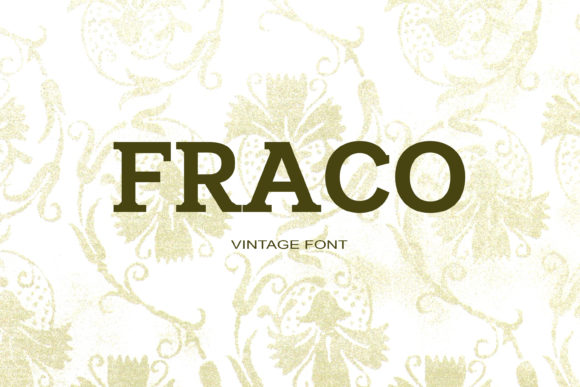
Introducing Fraco, a captivating serif font that radiates warmth and sophistication. Created by the ingenious minds of DmDesignsStoreArt, this breathtaking font evokes a sense of timeless elegance with its alluring curves and open counters.
Immerse yourself in the world of typography as Fraco's graceful lines dance across your screen. Its delicate serifs add a touch of whimsy, while the open counters ensure effortless readability. Let the harmonious rhythm of Fraco's letterforms captivate your audience, leaving a lasting impression that transcends the ordinary.
Embrace Fraco's versatility as it effortlessly adapts to an array of design projects. From captivating headlines that demand attention to elegant body text that invites immersion, Fraco effortlessly elevates your creative vision. Its timeless charm seamlessly complements any aesthetic, making it the perfect choice for branding, packaging, editorial design, and so much more.
Unleash your imagination as Fraco transforms your designs into masterpieces of typographic art. Whether you're a seasoned designer or just starting your creative journey, Fraco empowers you to express yourself with confidence and style. Experience the transformative power of Fraco and watch your creations flourish with unparalleled elegance and charm.